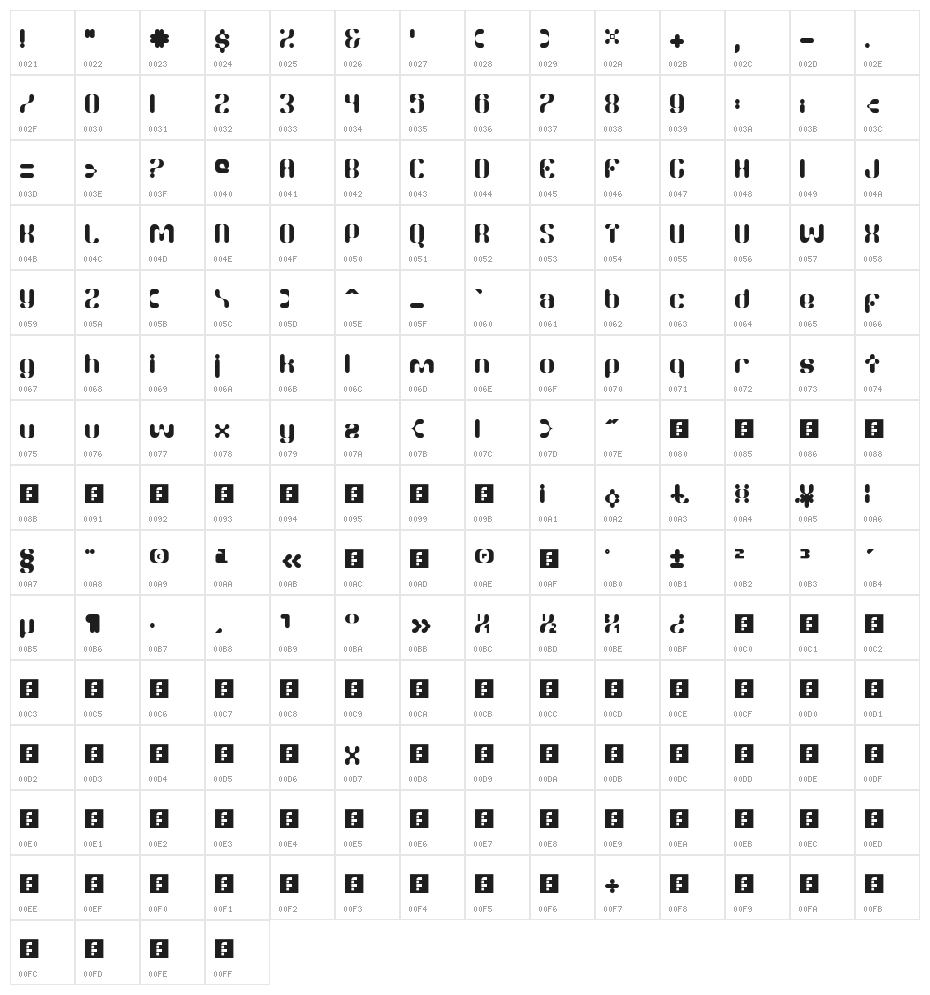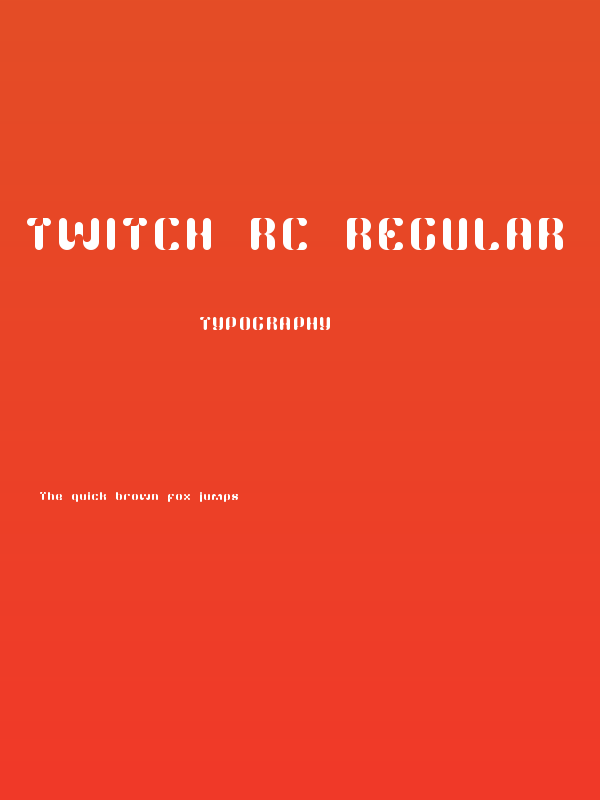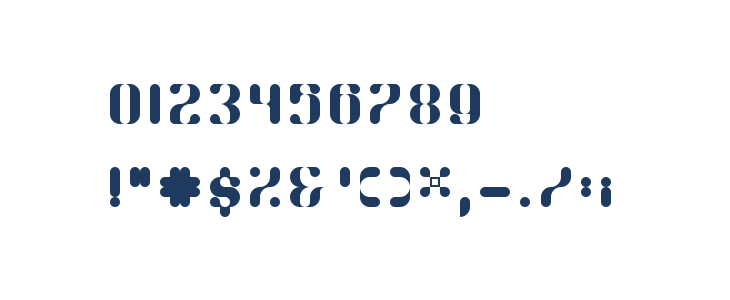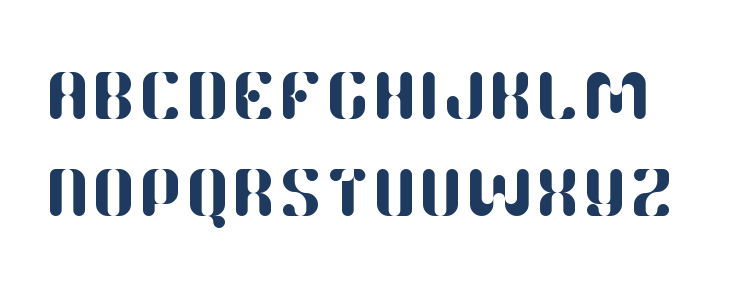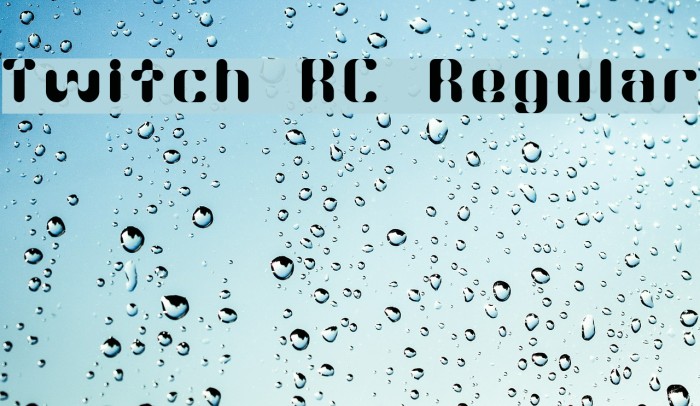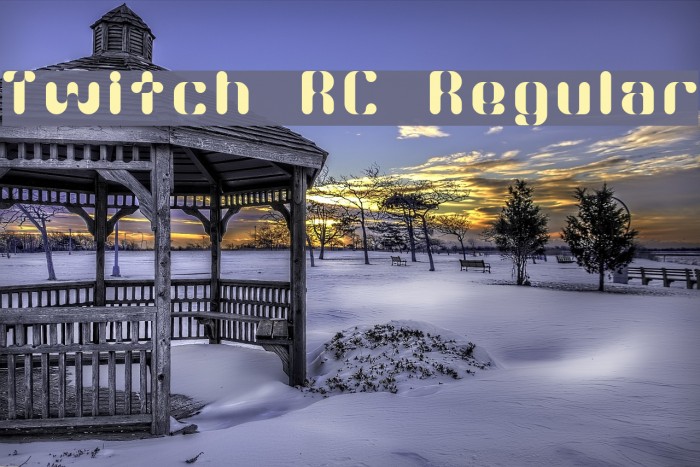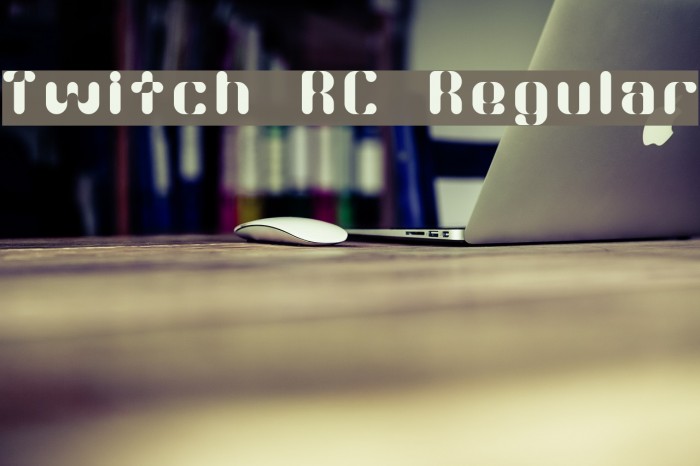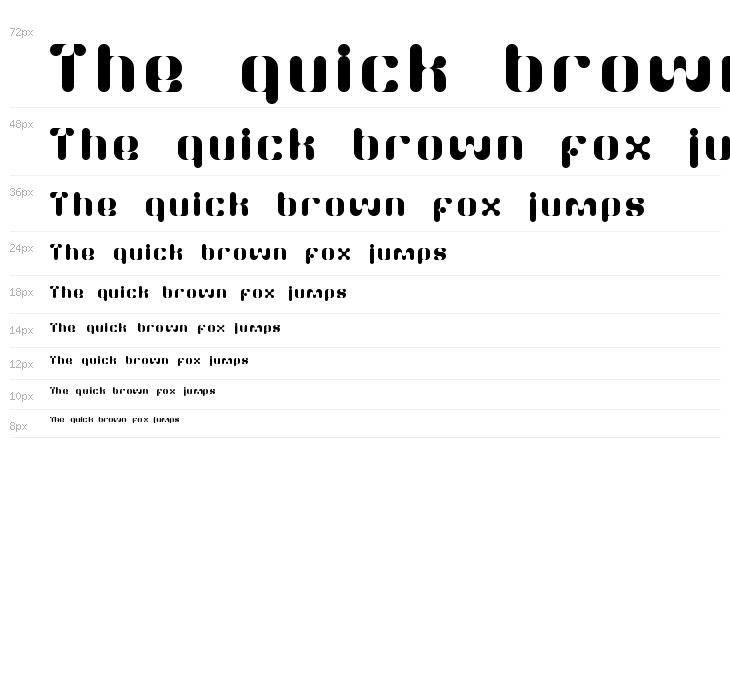
Twitch RC Regular Font
Twitch RC Regular Description
This font features a unique and modern design with a playful, stencil-like appearance. The characters are composed of bold, rounded shapes with distinct cutouts, creating a sense of movement and rhythm. The uppercase and lowercase letters maintain a consistent style, while the numerals and special characters follow the same design principles. The font's boldness and distinctiveness make it stand out, offering a contemporary and artistic vibe suitable for creative projects.
| Proposed Projects | Ideal for branding, posters, digital art, and creative advertising campaigns. |